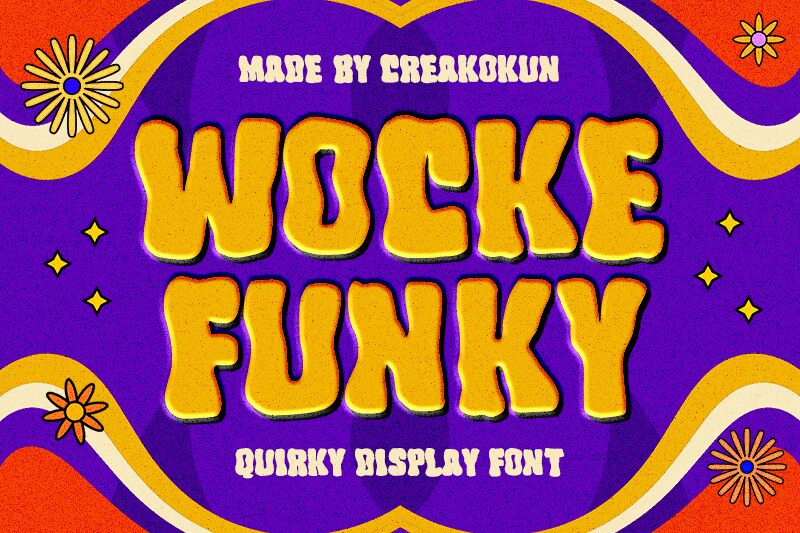
Introducing Wocke Funky, a bold groovy display font created by M Arif Dwi Prasetyo and Eko Nurcahyo. Perfect for creating retro logos, attention-grabbing titles and unique designs, Wocke Funky is sure to add a fun touch to any project.
Wocke Funky
Creakokun Studio
M Arif Dwi Prasetyo & Eko Nurcahyo